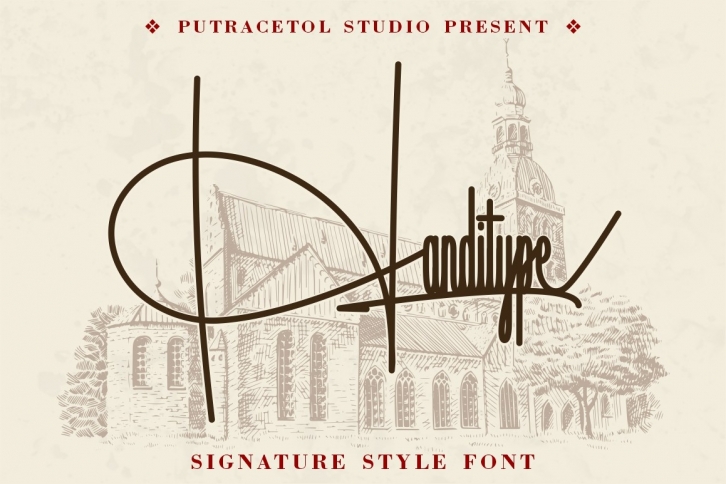
Handitype is a gorgeous font that was realeased on March 27, 2020. The font can be used in many style contexts and design environments. Perfect for invitations, magazines, websites, logos, and more! It was designed by PutraCetol Studio and the file size is 14.1 MB. Thanks for checking out this font!